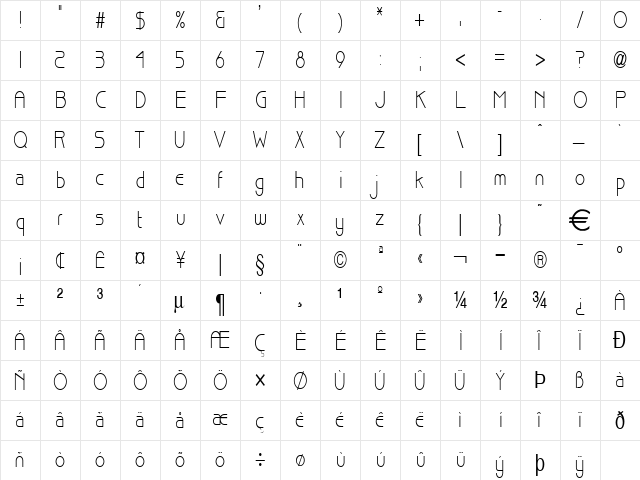
BasqueThin Normal Font Preview
BasqueThin Normal
BasqueThin Normal Font Details
Design Context for BasqueThin Typeface
BasqueThin takes a measured approach to typography — its balanced proportions and neutral character make it a reliable workhorse for both digital and print work. The delicate stroke weight brings airiness and refinement to layouts.